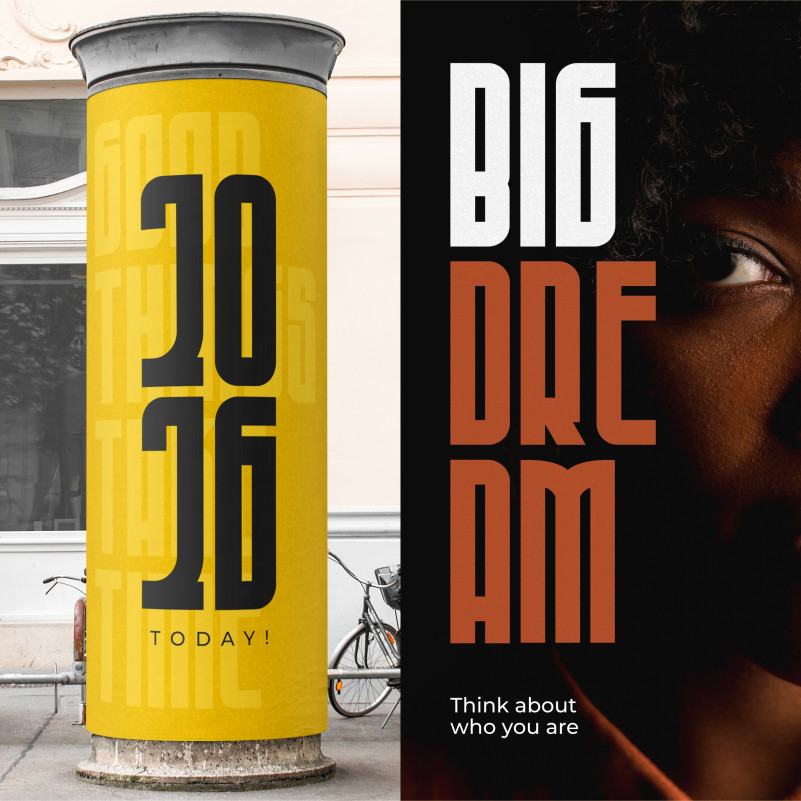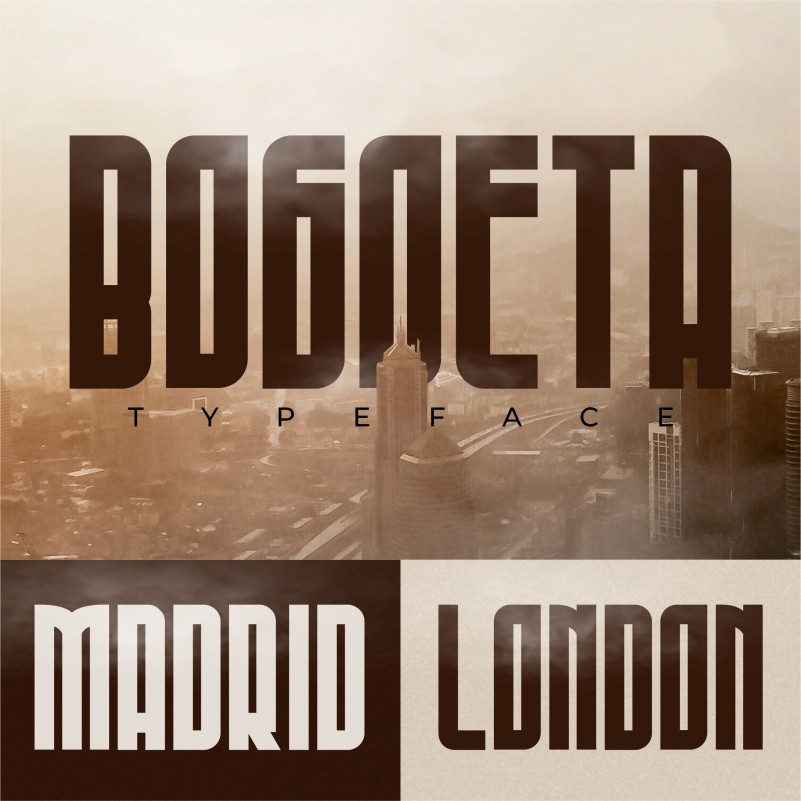
Bogoeta Font
Bogoeta Display Font is a modern look font with a futuristic vibe, clean ,and bold display font. It will look stunning on any poster flyer or print. Use this font for your designs and explore its endless possibilities.